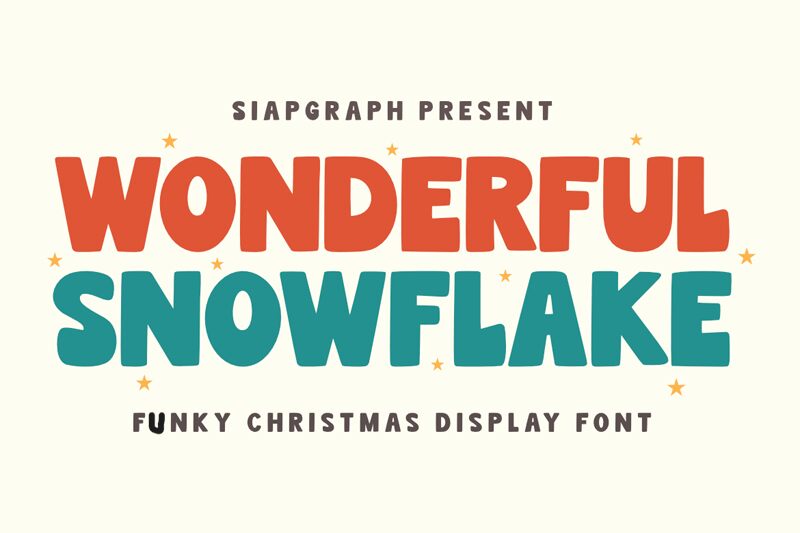
Wonderful Snowflake font by Siapgraph is a playful and chunky free display font with a groovy style. Its festive appearance gives every typographic project you use it for a cheerful and vibrant vibe. Wonderful snowflake is built upon a retro-inspired theme that makes it suitable for various graphic design purposes. Its unique and whimsical letterform make it an expressive typeface that easily catches the eyes of viewers.